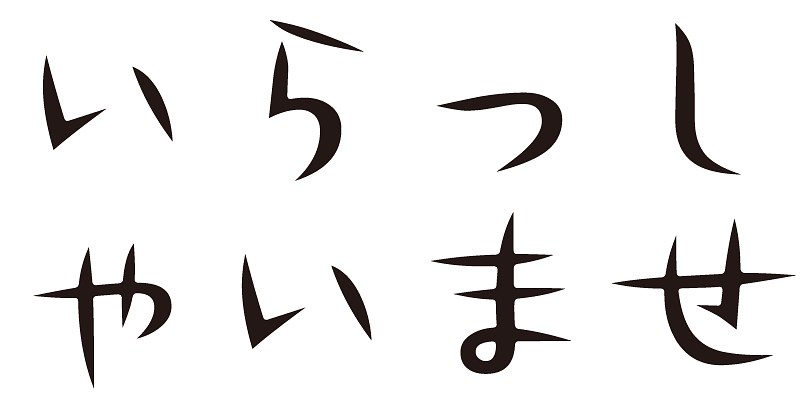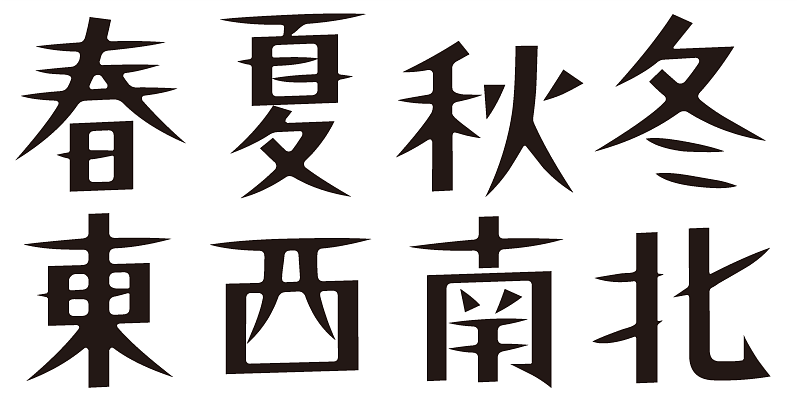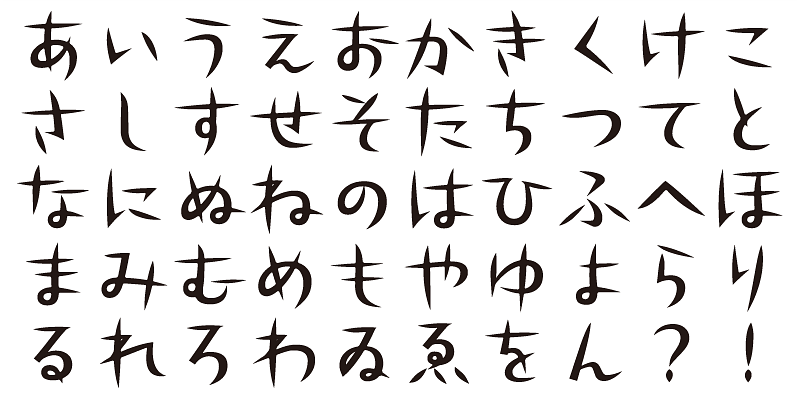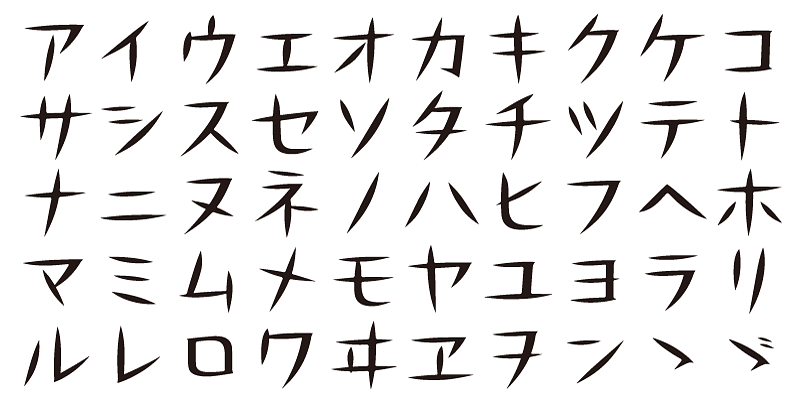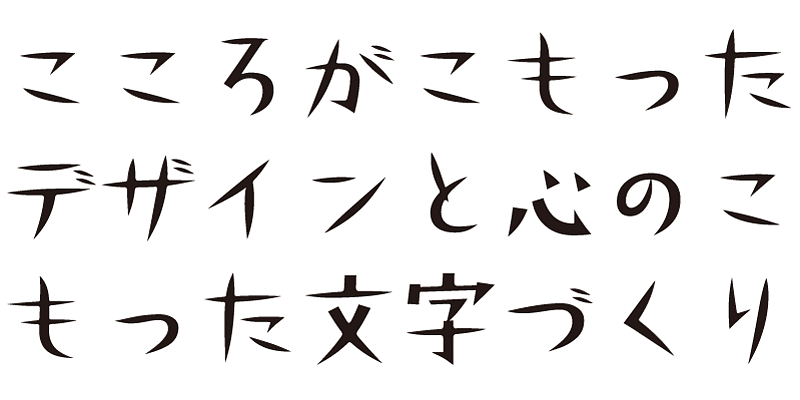
This typeface embodies a sense of classical calm and elegance, inspired by the eternal flow of time.
This font includes top 1,000 kanji characters chosen from character frequency tables made by newspaper companies, publishing houses and linguistic research institutes, plus about 400 alphanumeric, kana characters and punctuation marks.